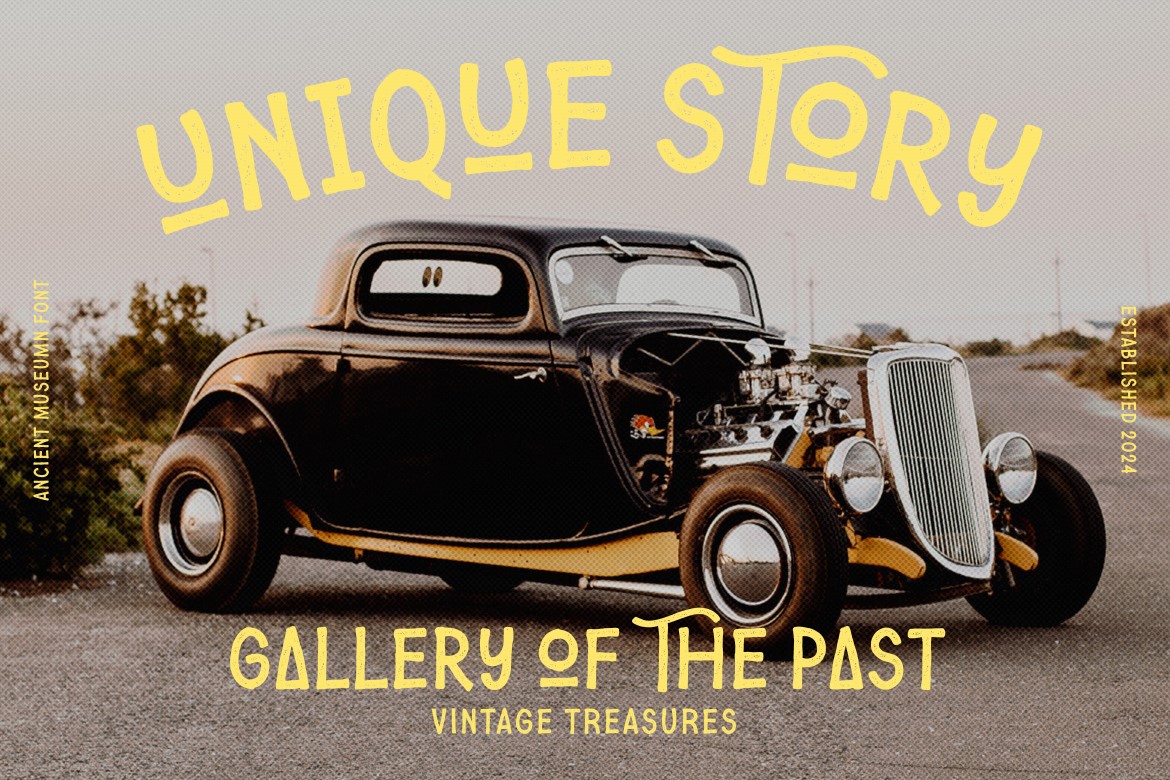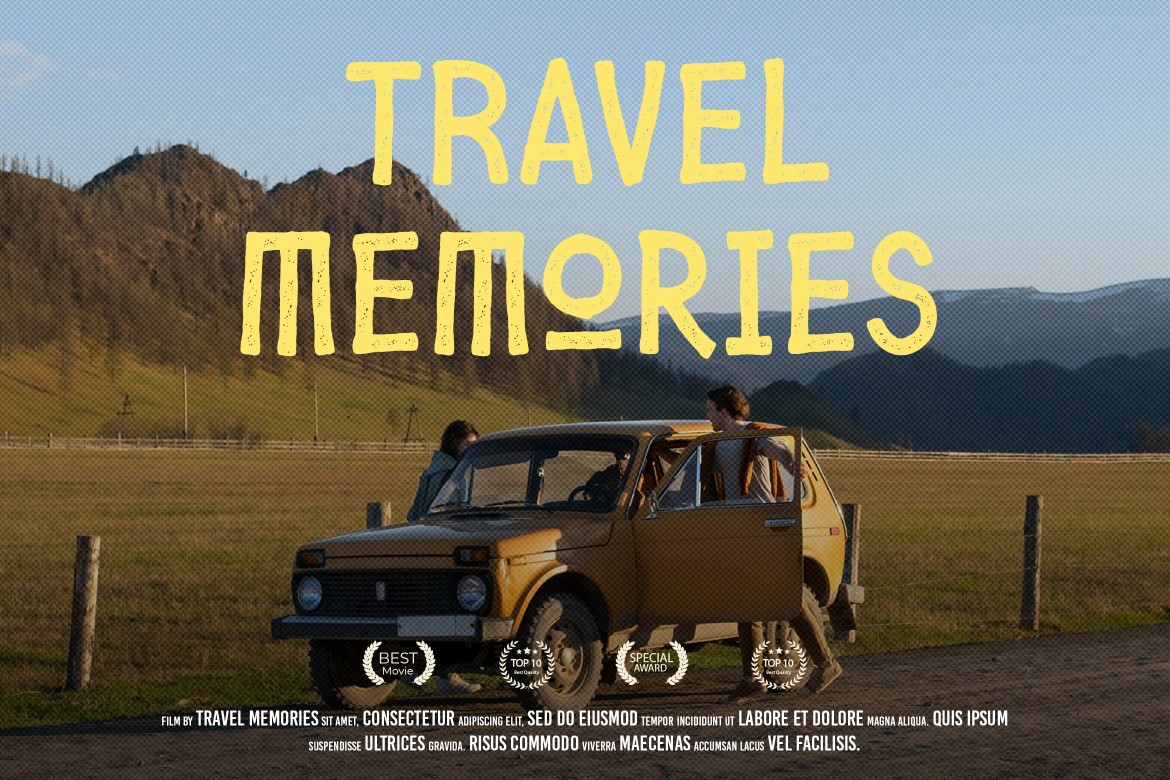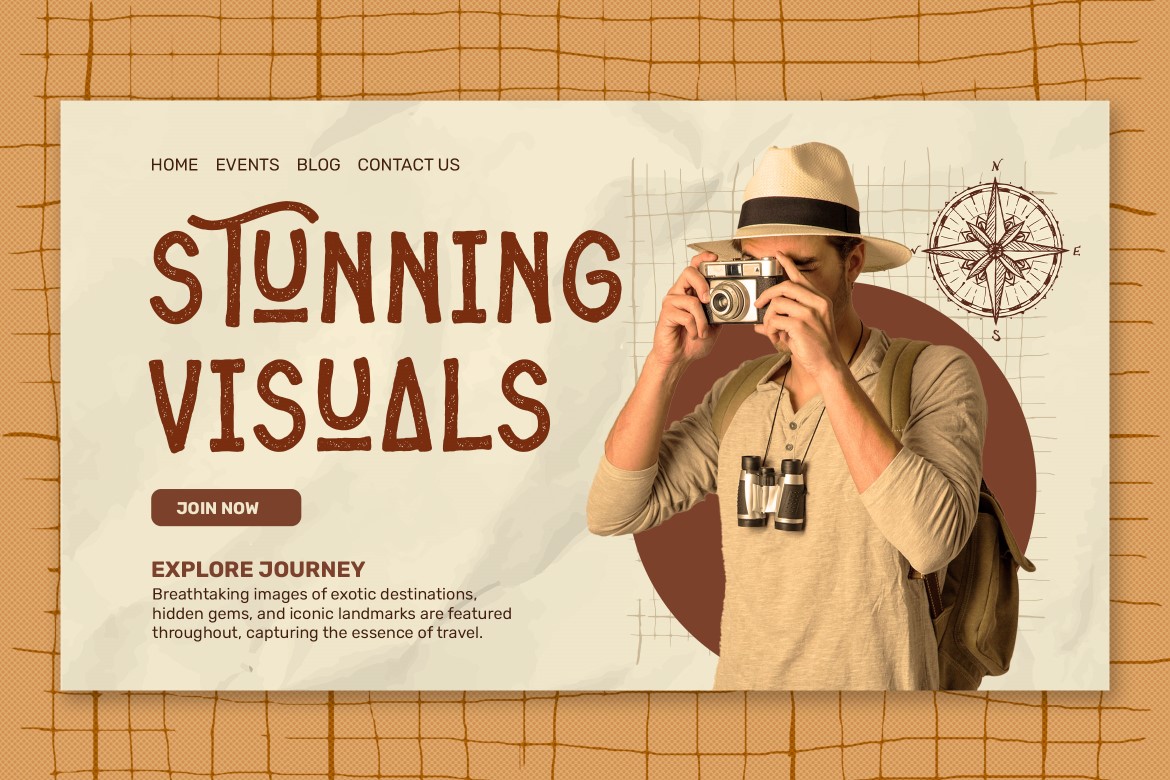
With its rough texture and quirky shapes, Ancient Museum is perfect for logos, retro branding, travel posters, editorial design, or any creative project that seeks a historic, adventurous vibe.
Ideal for:
Vintage-inspired logos
History-themed designs
Travel and tourism branding
Posters, packaging, and display text
Creative titles with a handmade touch
Crafted by Lettersiro in 2024, this font adds a unique voice to your visual storytelling — like stepping into an old museum full of wonder and forgotten tales.